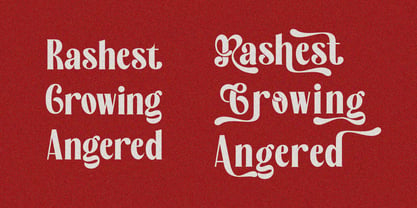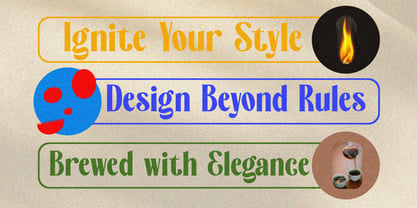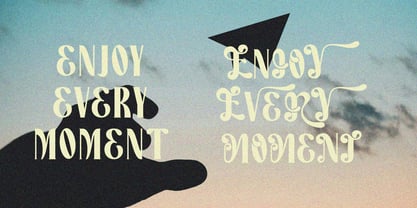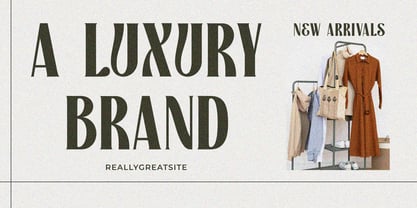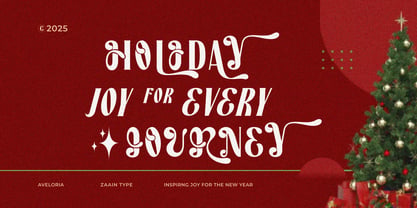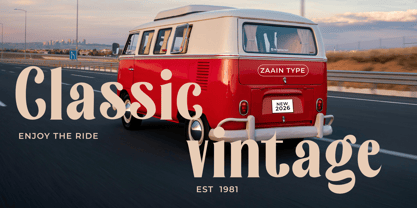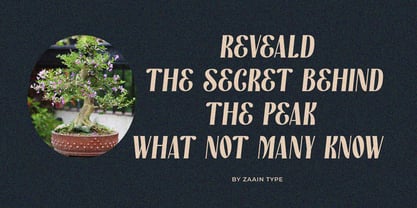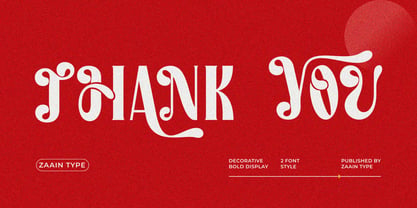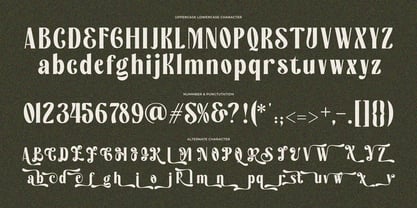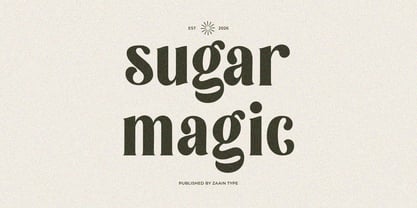
Zt Aveloria
by Zaain Type
The Zt Aveloria Font Family was designed by Ju Naen and published by Zaain Type. Zt Aveloria contains 2 styles and family package options. More about this family
Aveloria is a modern serif typeface that blends classic structure with a touch of contemporary luxury. Each character is crafted with balanced proportions, subtle contrast, and graceful curves that create an elegant presence without compromising readability. Its forms appear bold yet refined, making it perfect for premium branding, editorial layouts, beauty packaging, and any design project that seeks a refined and sophisticated look. With clean serifs and carefully controlled details, Aveloria delivers a timeless aesthetic—ideal for headlines that need elegance or text that conveys confidence. Aveloria comes with styles that support creative flexibility, making it an excellent choice for designers pursuing high visual quality
Designers: Ju Naen
Foundry: Zaain Type